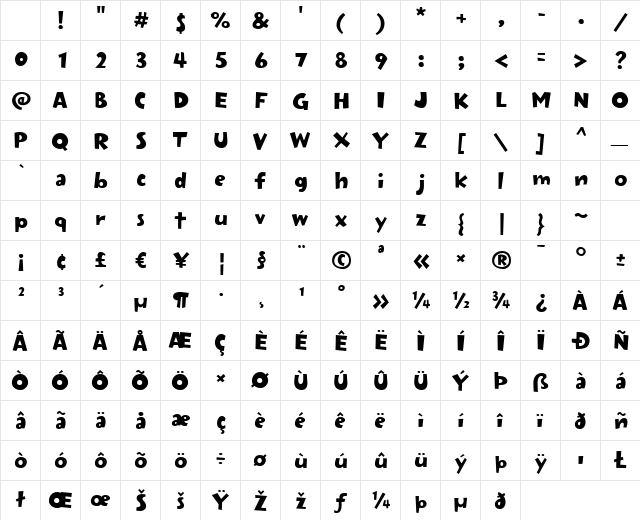
Complete P22 Rakugaki Latin Regular glyph index. Displaying only characters natively supported by P22 Rakugaki Latin Regular font.
P22 Rakugaki Latin is a composed and adaptable typeface that performs quietly and consistently across a wide range of design contexts.